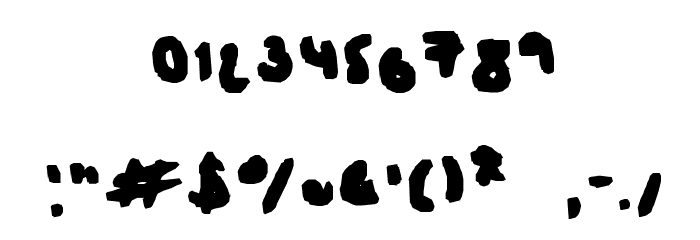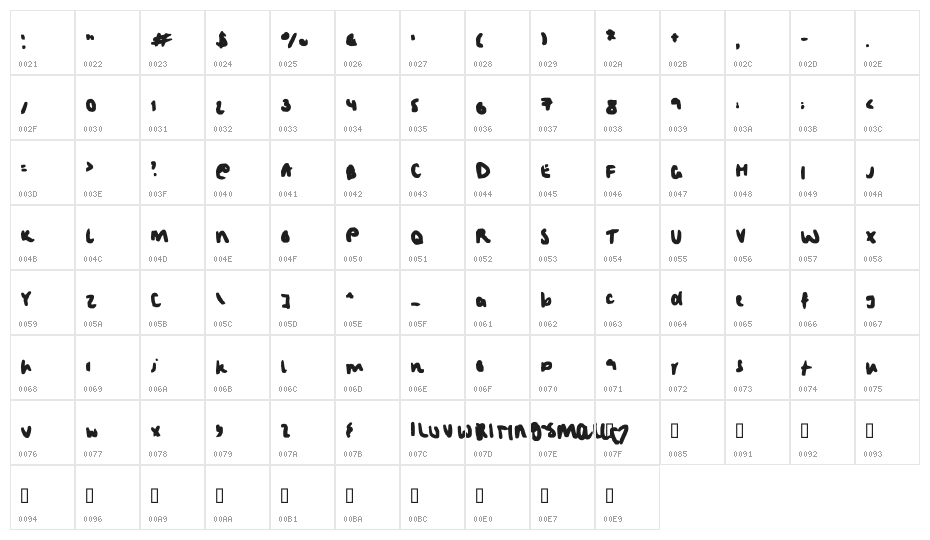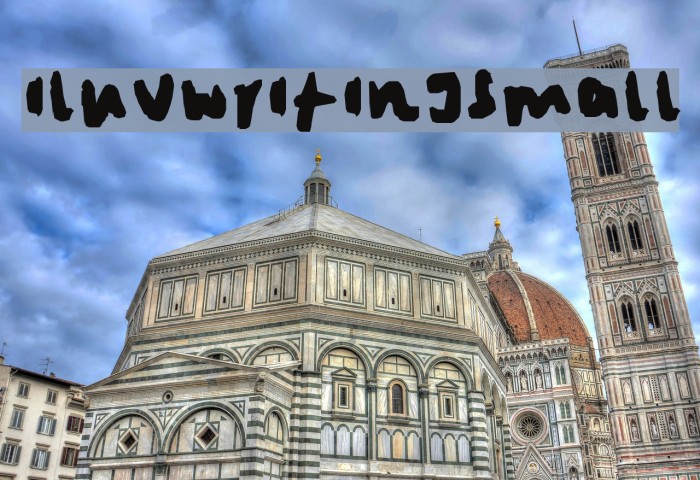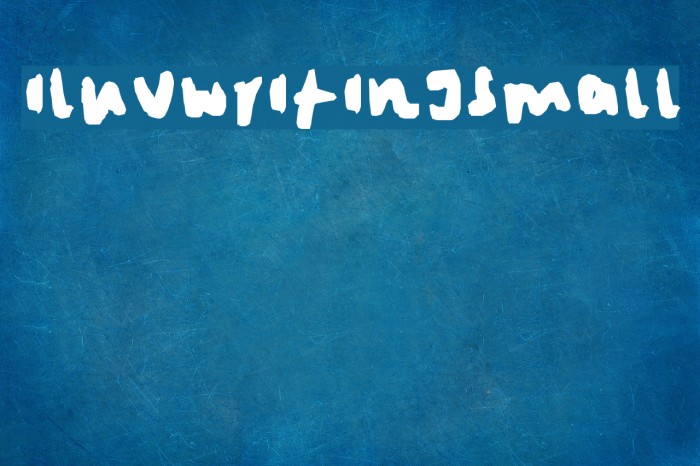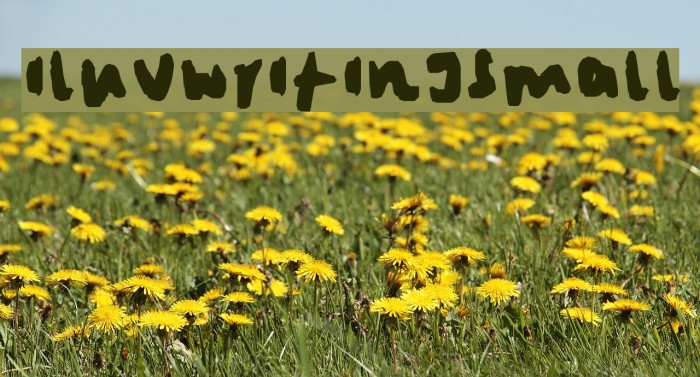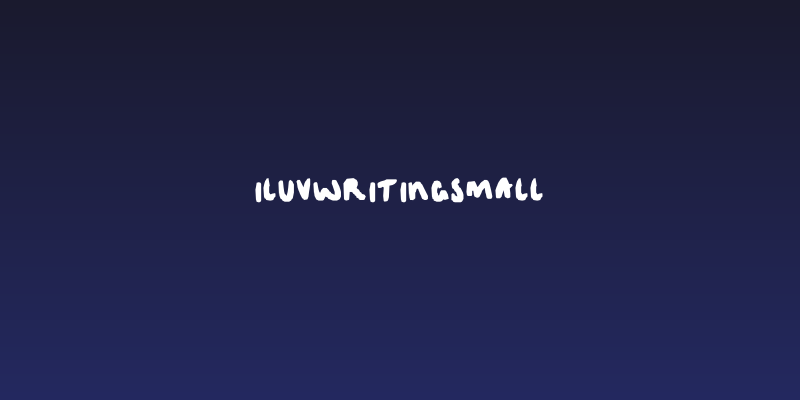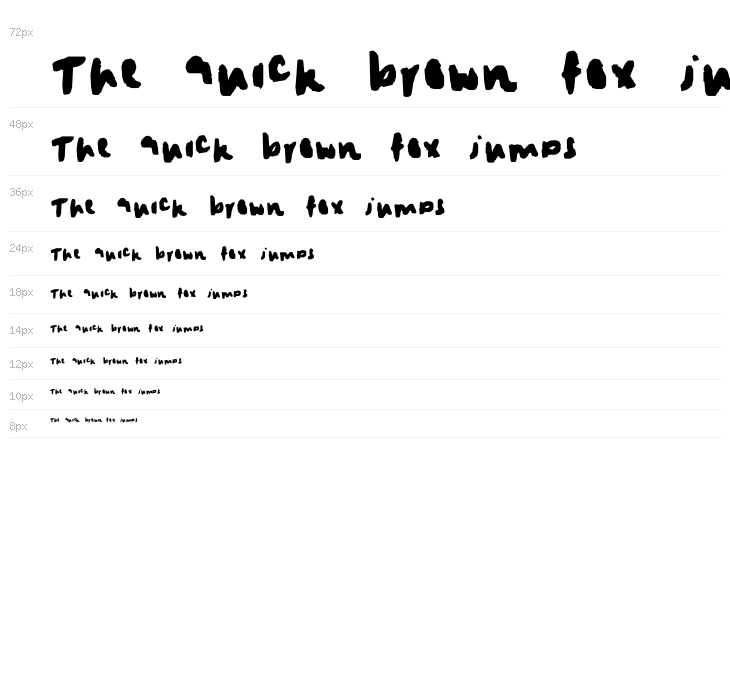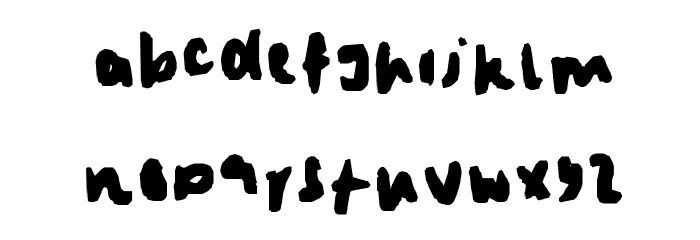
iluvwritingsmall Font
iluvwritingsmall Description
This font exhibits a playful and informal style, characterized by its bold, hand-drawn appearance. The letters are unevenly shaped, giving it a casual and spontaneous feel. The strokes are thick and consistent, contributing to its boldness, while the irregularity in letterforms adds a unique charm. The font maintains a consistent weight throughout, with a slightly condensed width that enhances its compactness. The character spacing is tight, which complements its overall dense and robust look. This font is ideal for projects that require a personal touch or a creative flair, such as children's books, casual posters, or artistic designs.
A bold, hand-drawn font with a playful and informal style from Uncategorized fonts.
- Proposed Projects: Children's books, casual posters, artistic designs, personal projects.
- Character Spacing: Tight
- Overall Style: Playful, Informal
- Use Case: Headlines, Artistic designs, Casual posters